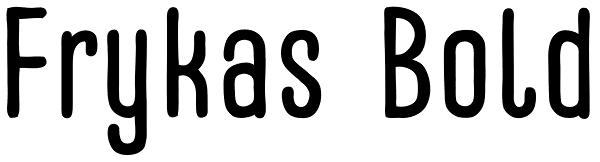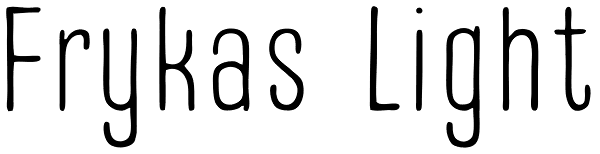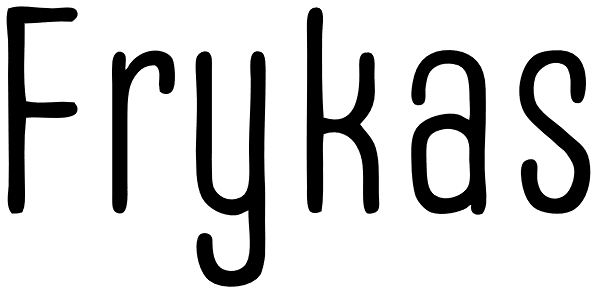
Frykas
Frykas is warm and friendly, hand-drawn font. It has a simple form with subtle irregularities, but no swashes or ornaments. This condensed font family with five styles will be a great solution for posters, titles, short sentences or whenever you...